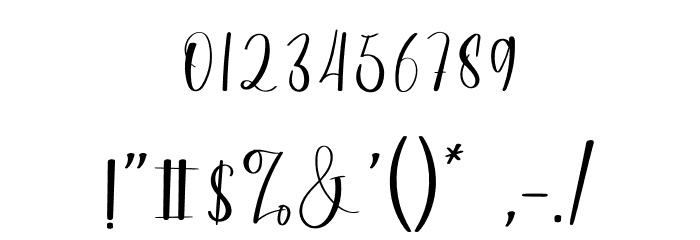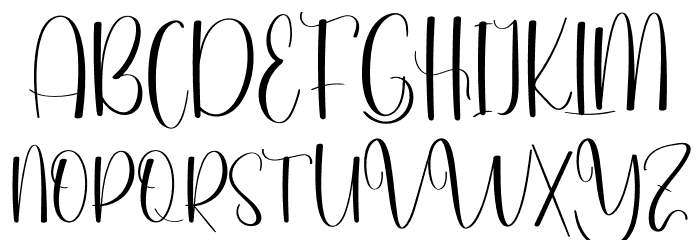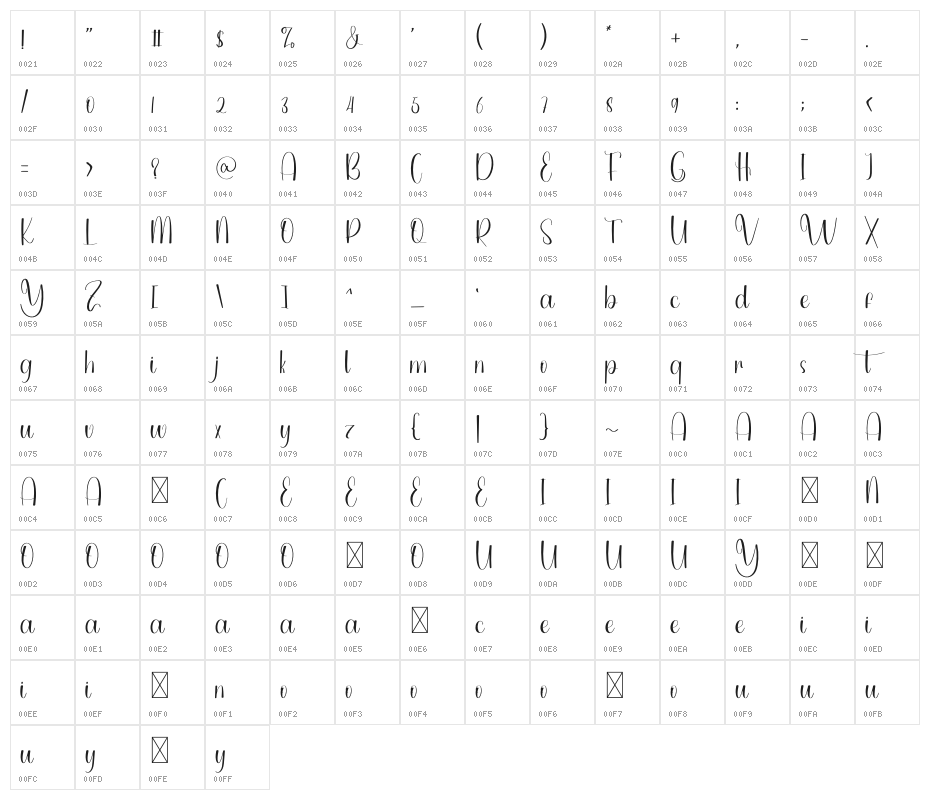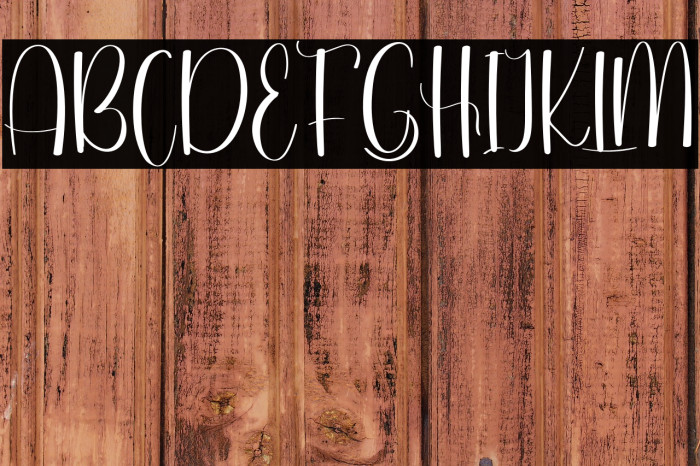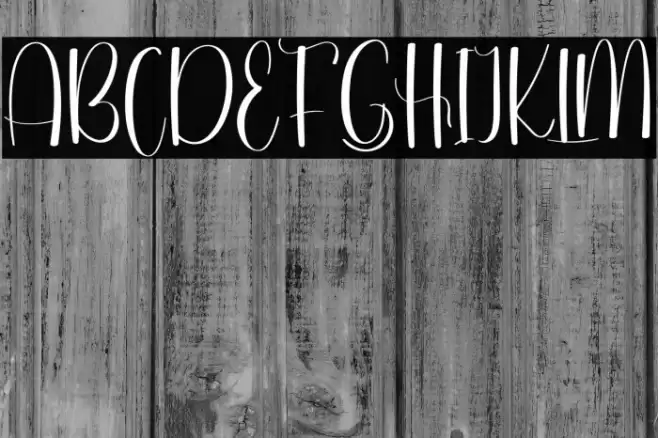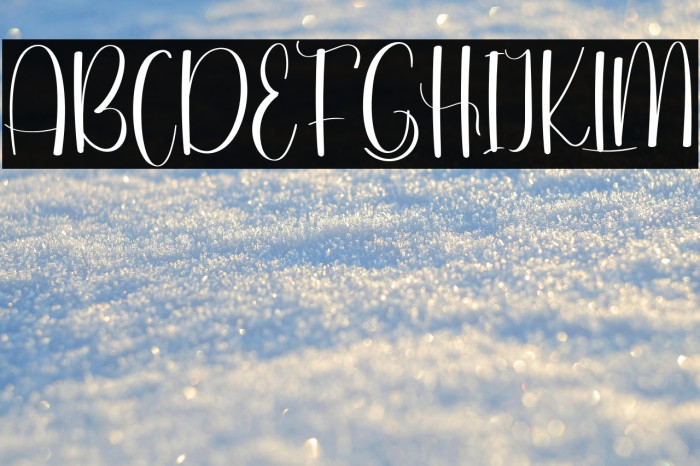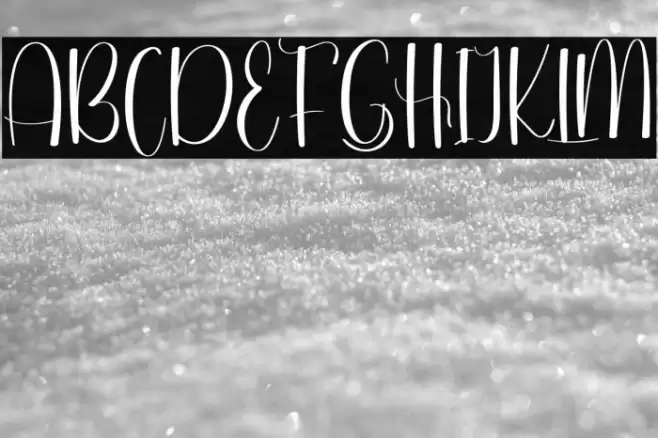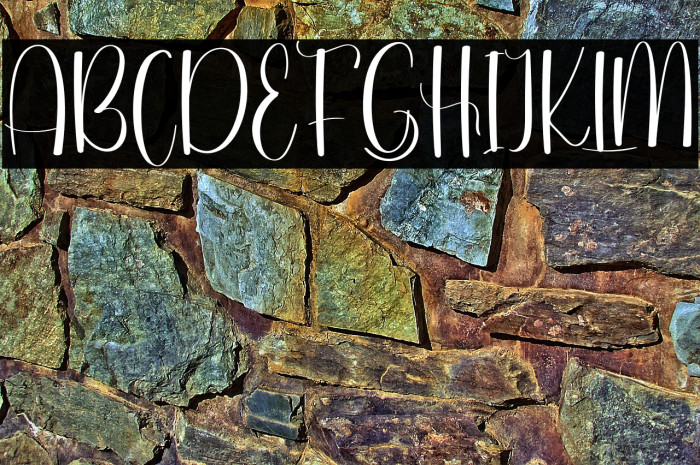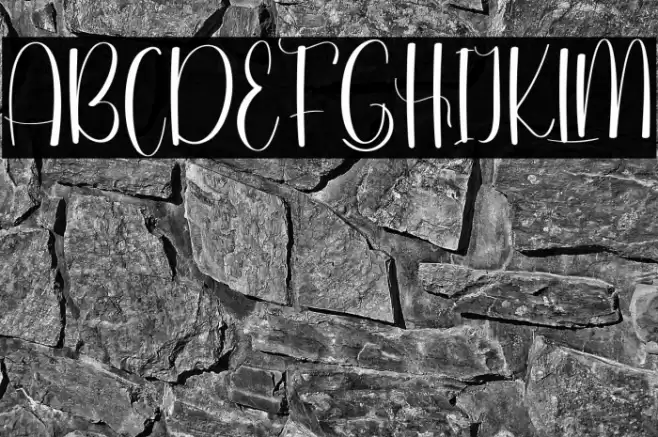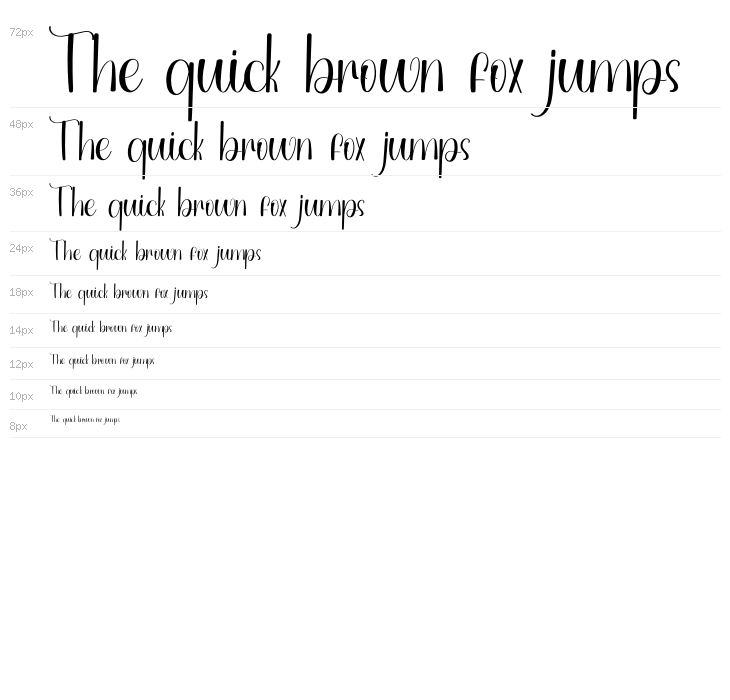
Beautiful Vintage Font
✎ Script
Beautiful Vintage Description
This font exudes a charming vintage flair with its elegant and flowing script style. The uppercase letters are tall and slender, featuring graceful curves and loops that add a touch of sophistication. The lowercase letters maintain a consistent style, with smooth, flowing lines that create a harmonious balance. The numerals are distinct and easy to read, complementing the overall aesthetic. Special characters are thoughtfully designed, maintaining the font's cohesive look. This font is perfect for projects that require a touch of elegance and nostalgia.
| Overall Style | Vintage |
| Use Case | Logos, Invitations, Decorative Text |
| Proposed Projects | Ideal for wedding invitations, vintage-themed branding, elegant stationery, and decorative signage. |